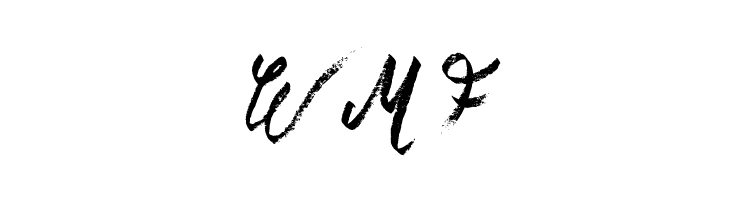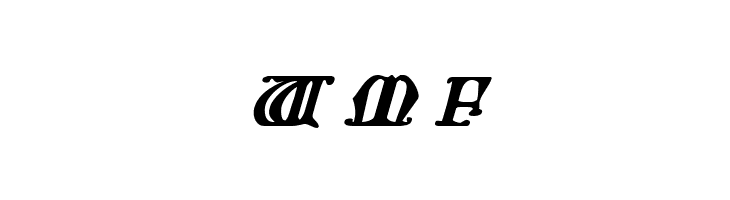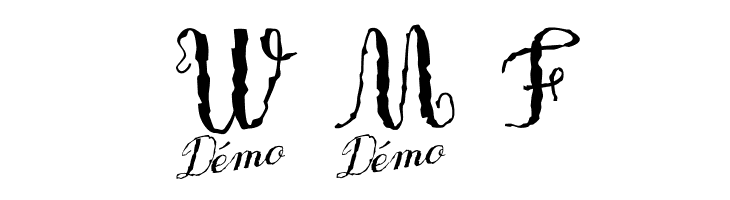
An ornate and decorative font with intricate swirls and embellishments.
A bold, ornate Blackletter font with intricate serifs and flourishes.
An elegant, ornate script font with intricate swirls and bold, modern numerals.
A bold, dynamic brush script font with expressive strokes and a hand-painted look.
A modern, elegant script font with dramatic flourishes and smooth curves.
An elegant and flowing script font with intricate loops and swirls.
An elegant script font with intricate loops and a sophisticated, artistic style.
A lively and flowing script font with elegant, cursive letterforms.
A fluid, elegant script font with a sophisticated handwritten style.
A bold, expressive script font with brush-like strokes and elegant flourishes.
An elegant, flowing script font with intricate swirls and loops.
An elegant, cursive font with flowing loops and swirls.
A bold, expressive handwritten font with dynamic strokes.
A playful and elegant cursive script with flowing loops and swirls.
A dynamic and flowing script font with elegant, fluid letterforms.
A dynamic, expressive handwritten font with fluid, cursive strokes and a brush-like texture.
An elegant script font with flowing, ornate cursive letters and intricate swashes.
A bold, elegant script font with flowing curves and sophisticated style.
An elegant script font with intricate loops and swashes, ideal for artistic projects.
An elegant script font with intricate, flowing lines and decorative swirls.
A bold, cursive font with dynamic strokes and artistic flair.
An elegant script font with ornate swirls and decorative flourishes.
An ornate and decorative font with elaborate swirls and flourishes.
A flowing, elegant script font with classic and modern elements.
An ornate and decorative font with intricate swirls and flourishes.
An ornate and whimsical decorative font with intricate swirls and loops.
An elegant script font with intricate swashes and flowing letterforms.
A playful and energetic script font with fluid, continuous strokes.
An elegant, flowing script font with smooth, cursive strokes and graceful curves.
A dynamic calligraphic font with elegant, flowing strokes.
An elegant script font with ornate swashes and high contrast.
An elegant, whimsical script font with decorative swirls and artistic flair.
A sophisticated script font with elegant loops and swashes, perfect for decorative uses.